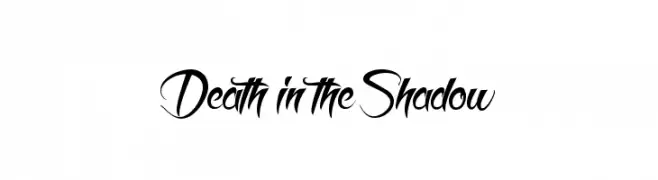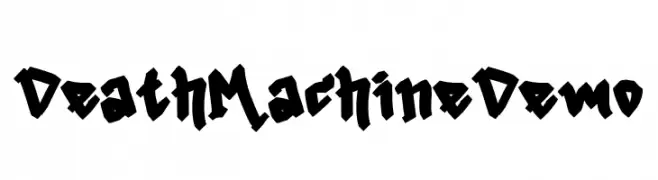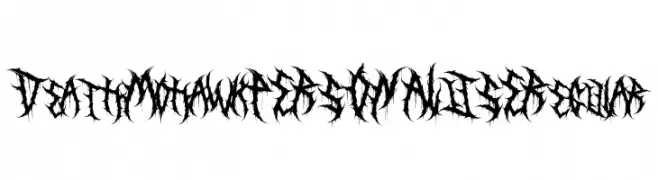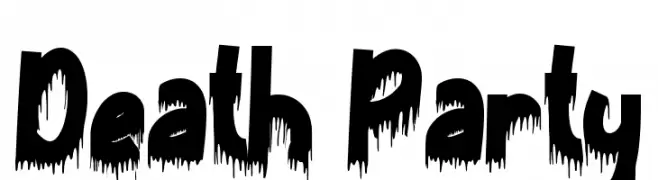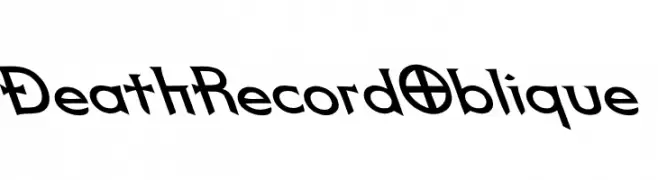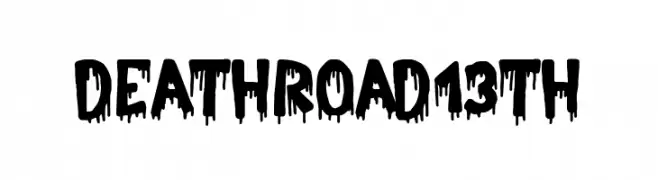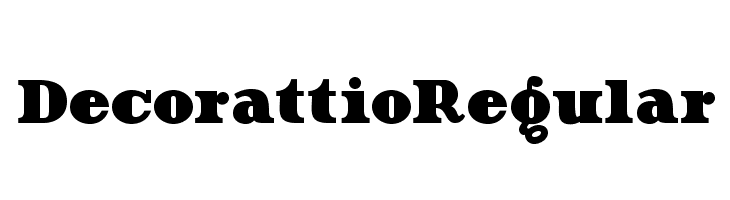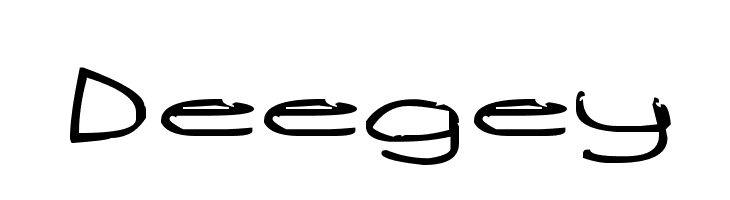
A dramatic, cursive font with sweeping strokes and elegant curves.
Bold, angular gothic-style font.
A bold, graffiti-style font with a dripping effect, perfect for edgy designs.
A decorative and edgy font with thorn-like, intricate details.
A bold, geometric font with a futuristic and industrial design.
A bold, dripping font ideal for horror and Halloween themes.
A gothic, medieval-inspired font with sharp, angular lines and unique letterforms.
A bold, italic font with gothic influences and sharp, angular serifs.
A bold, angular font with an oblique style, perfect for impactful designs.
Bold, dripping decorative font ideal for horror themes.